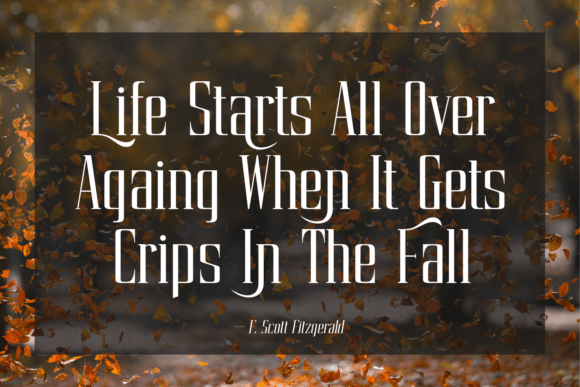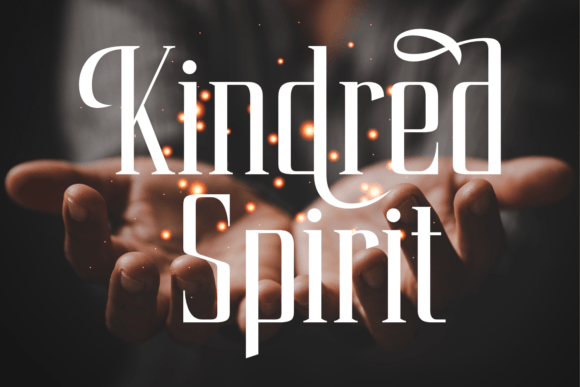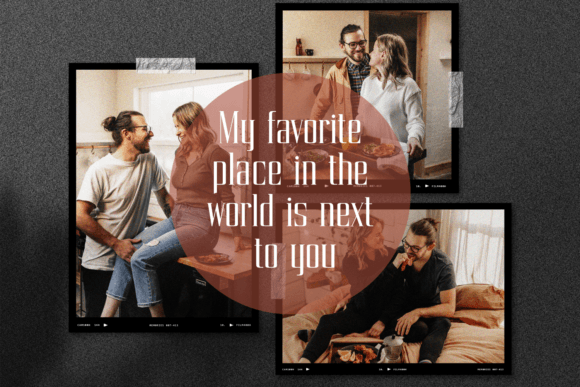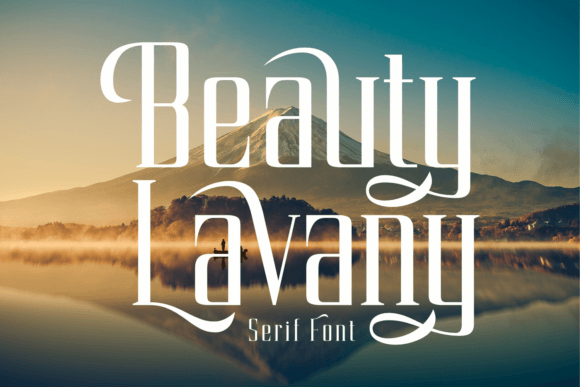
Introduction to Beauty Lavany Font
Beauty Lavany is a refined serif font that exudes timeless elegance.
With graceful curves and sophisticated serifs, it captures the essence of classic beauty Ideal for adding a touch of sophistication to invitations, branding, and editorial designs, Beauty Lavany brings a sense of luxury and charm to any project.
Key Features of Beauty Lavany Font
Why Choose Beauty Lavany Font?
Beauty Lavany Font offers exceptional quality and versatility, making it a valuable addition to your design toolkit. Whether you’re creating for personal projects or commercial use, Beauty Lavany Font delivers professional results.